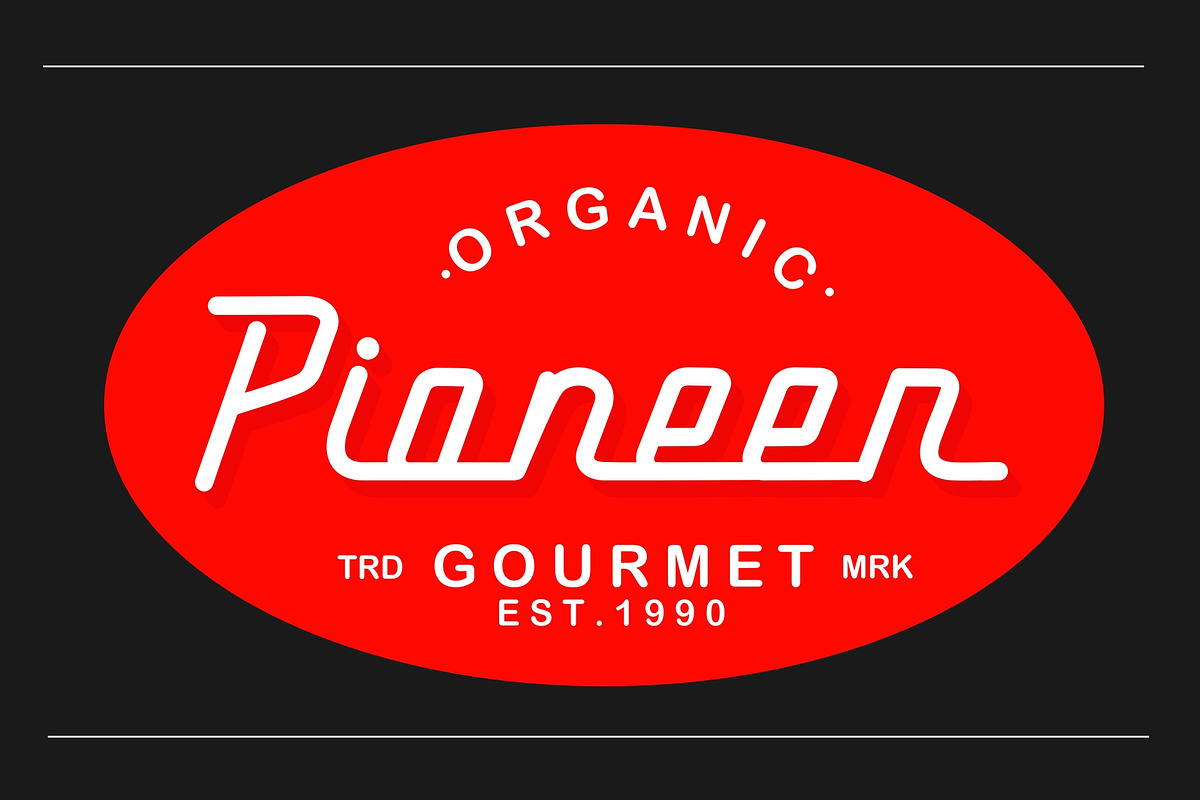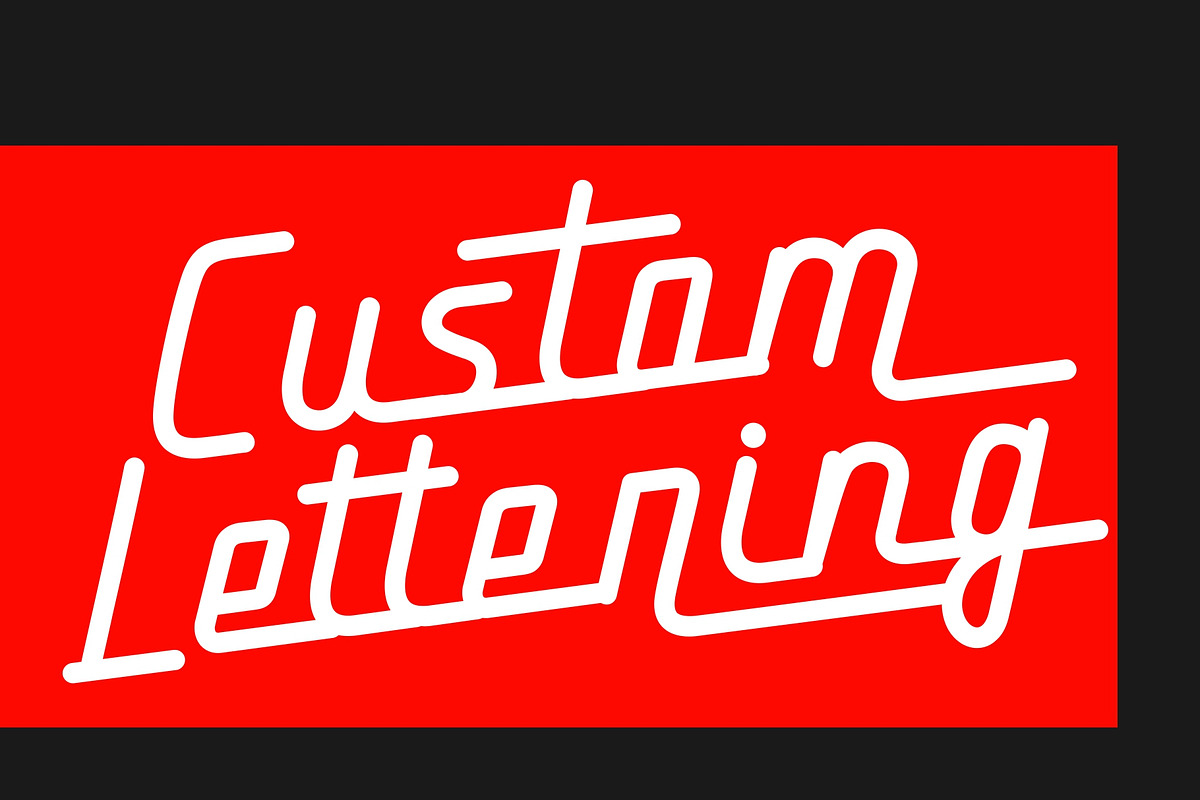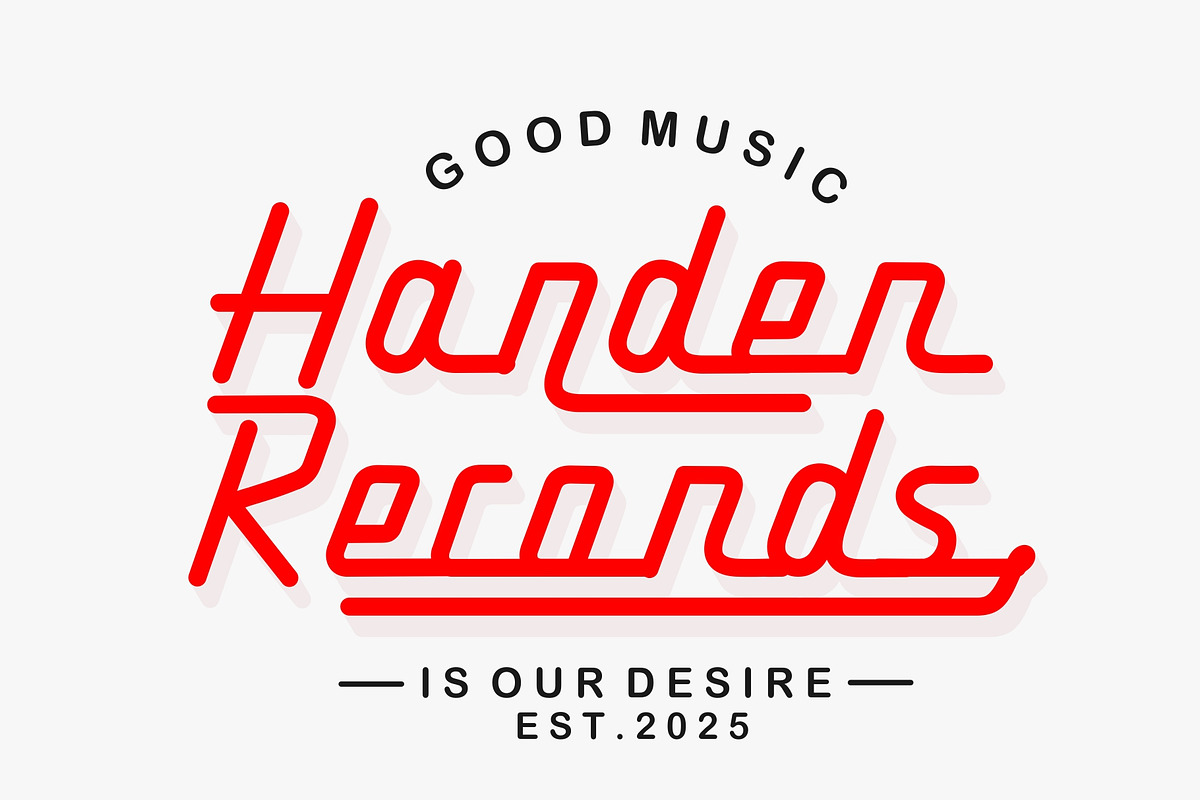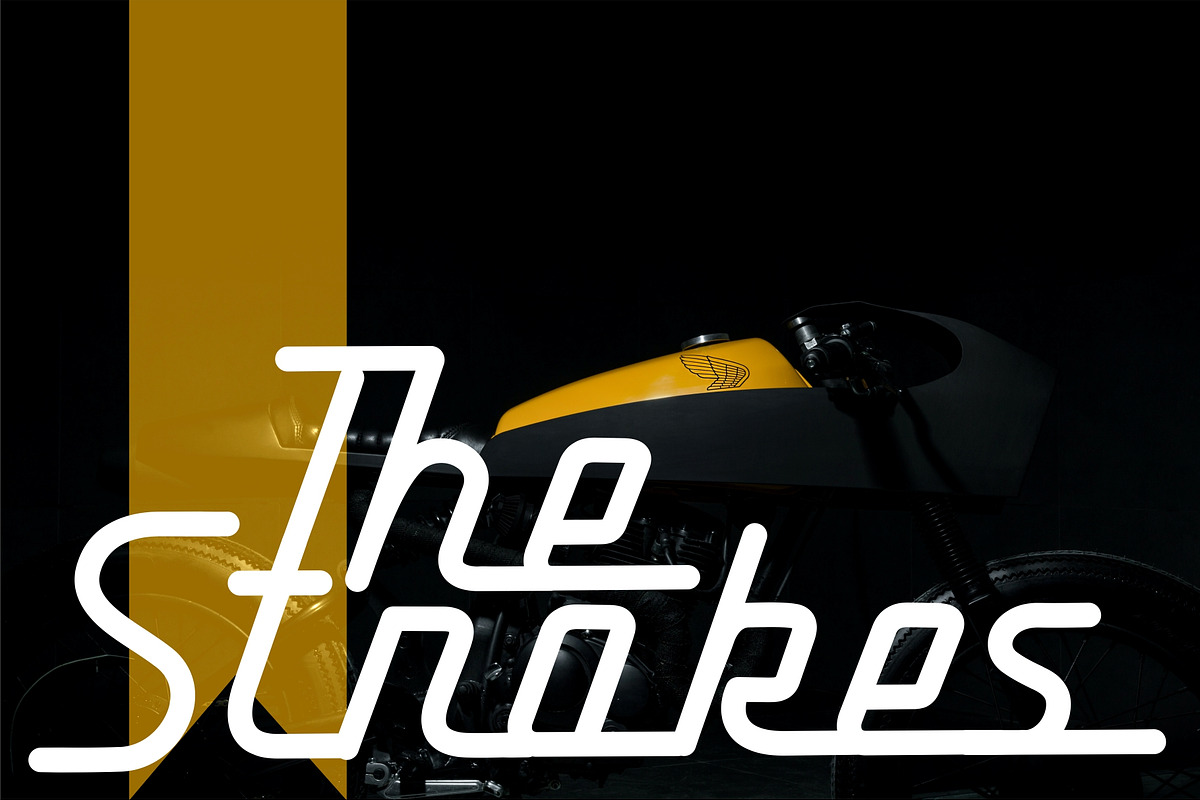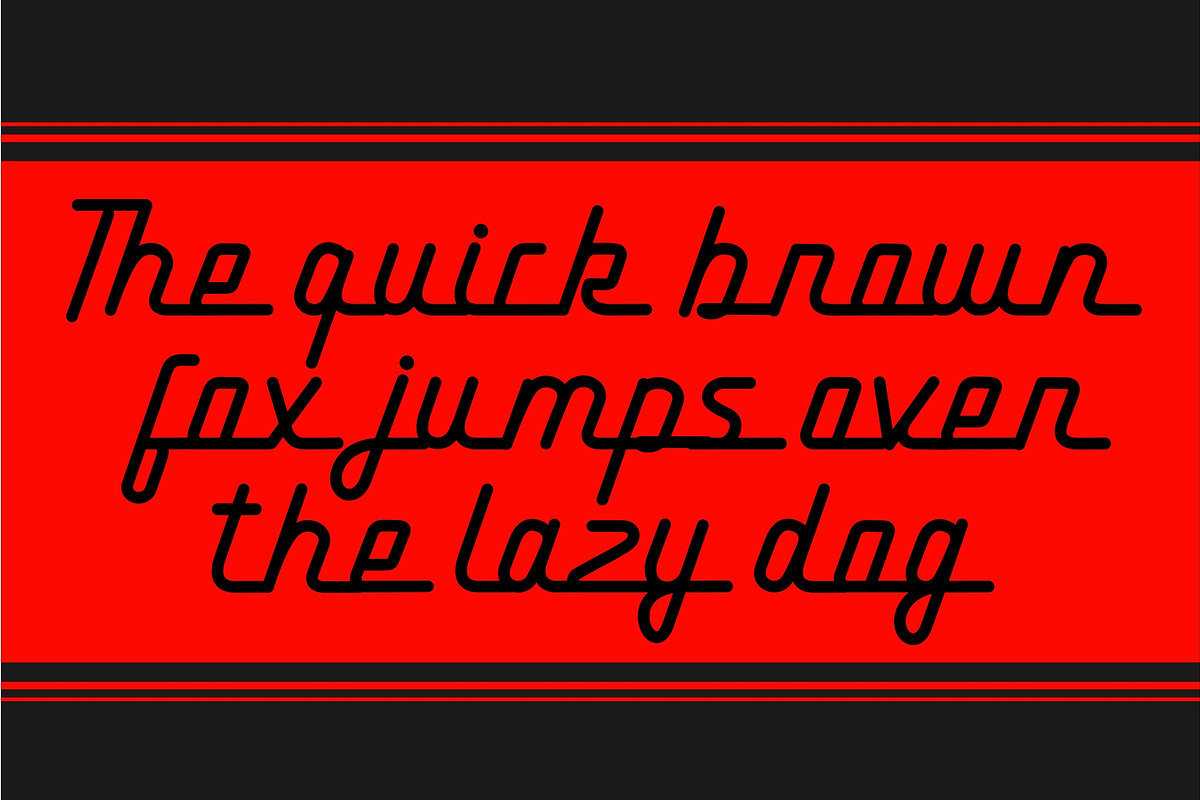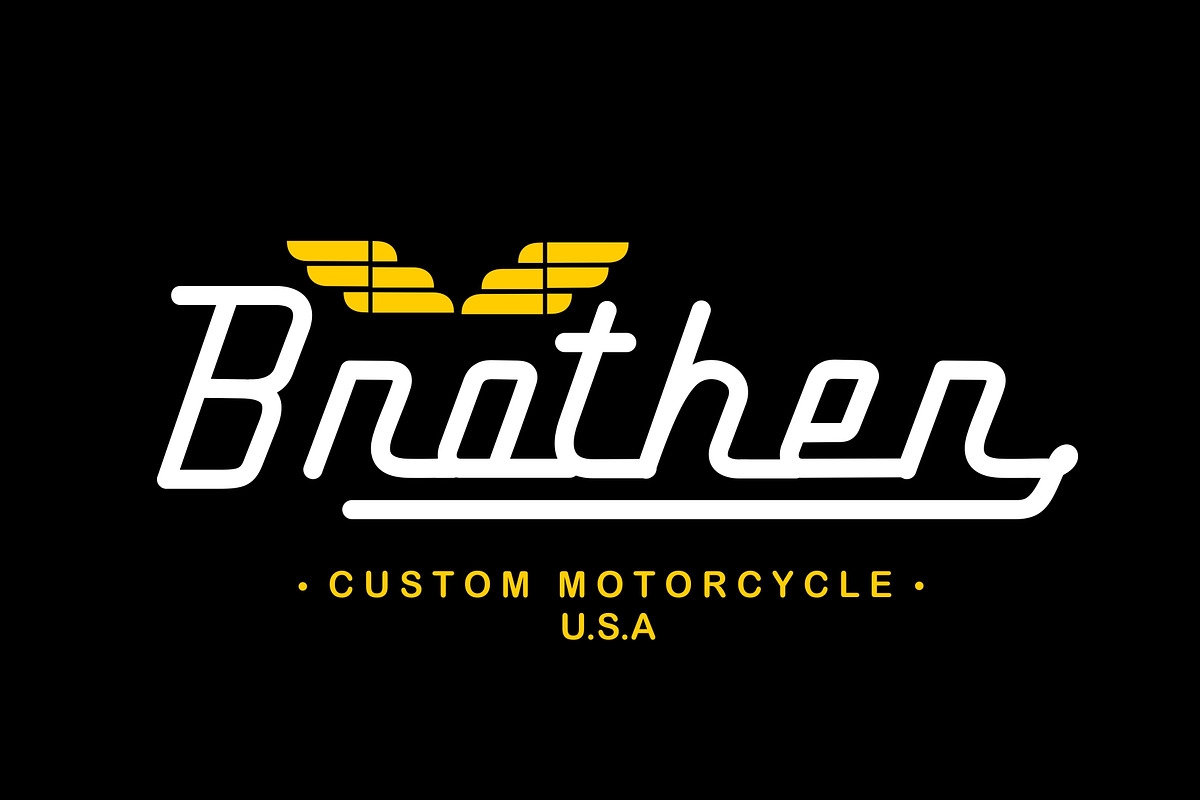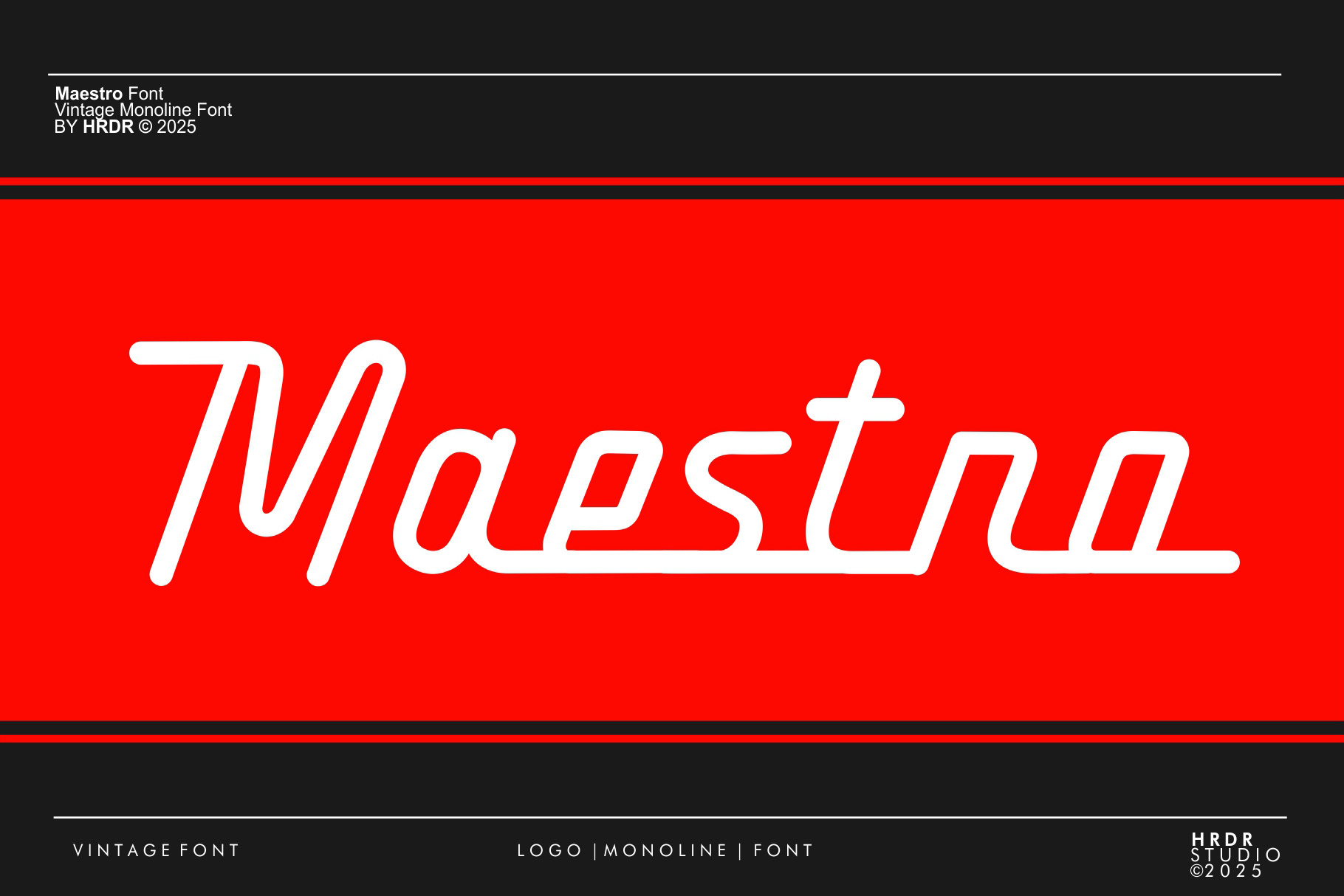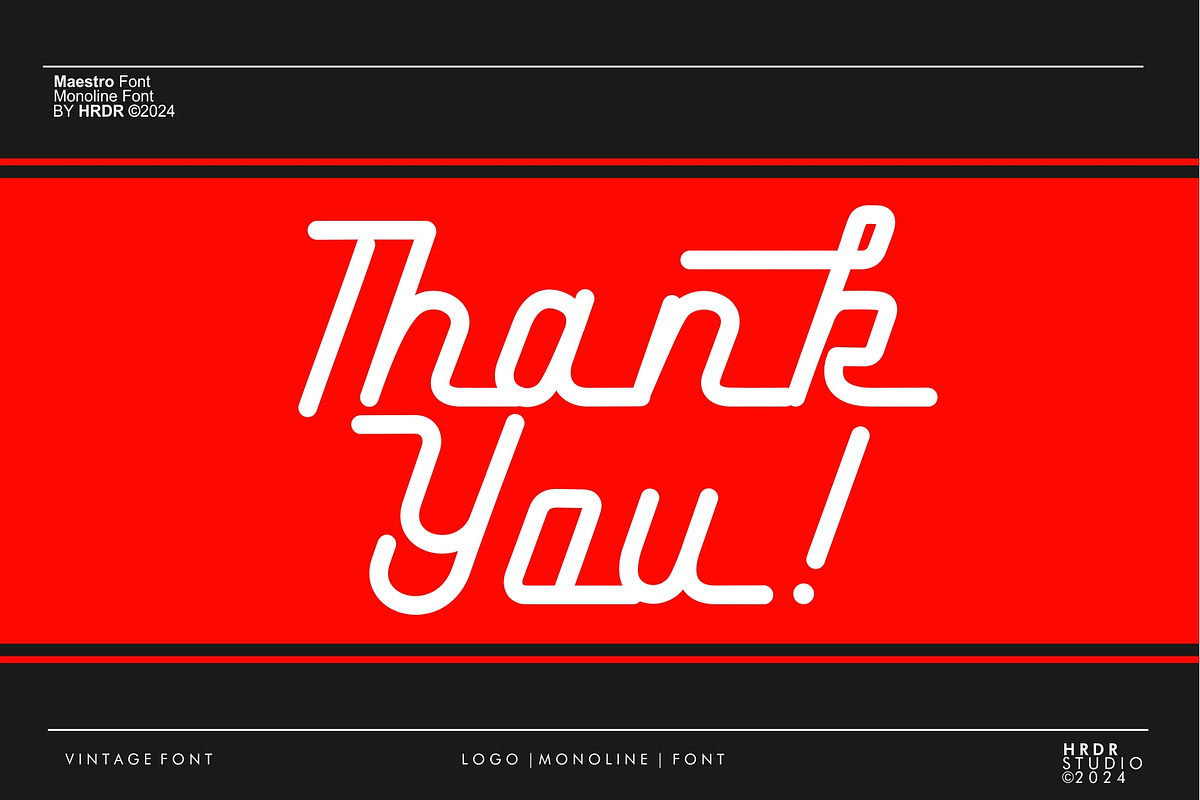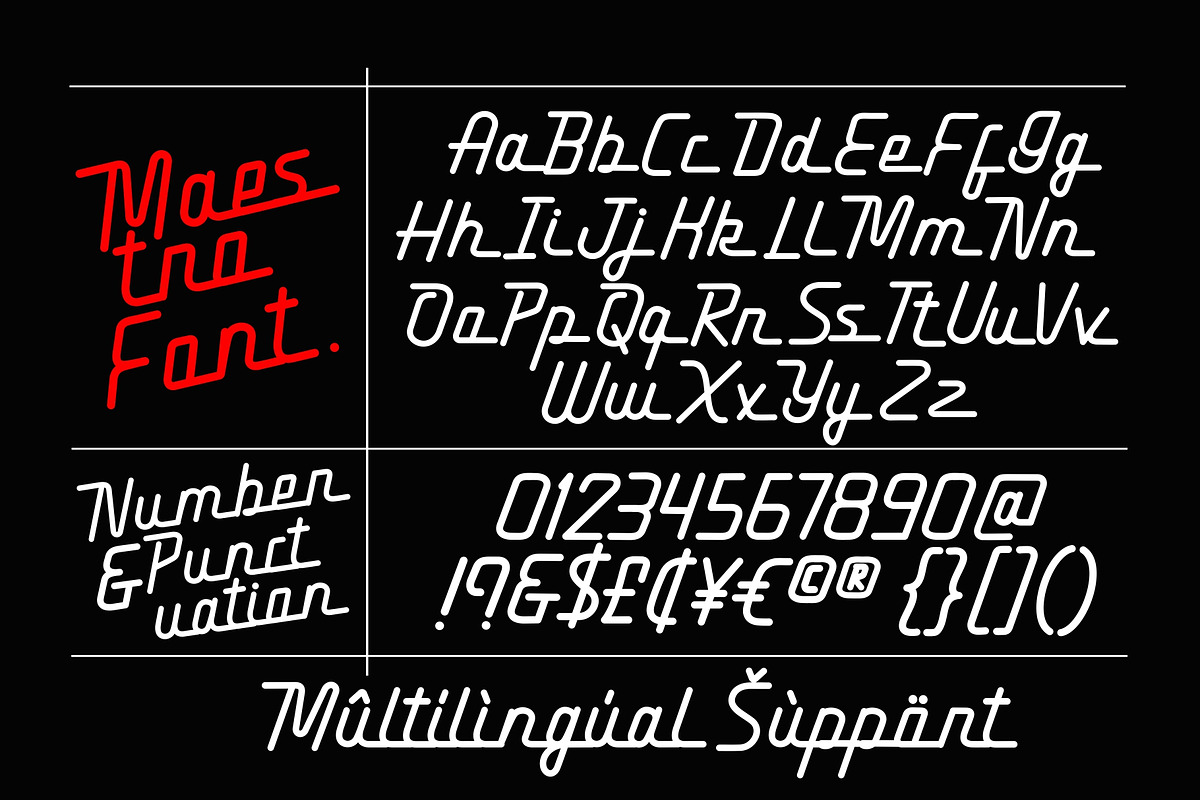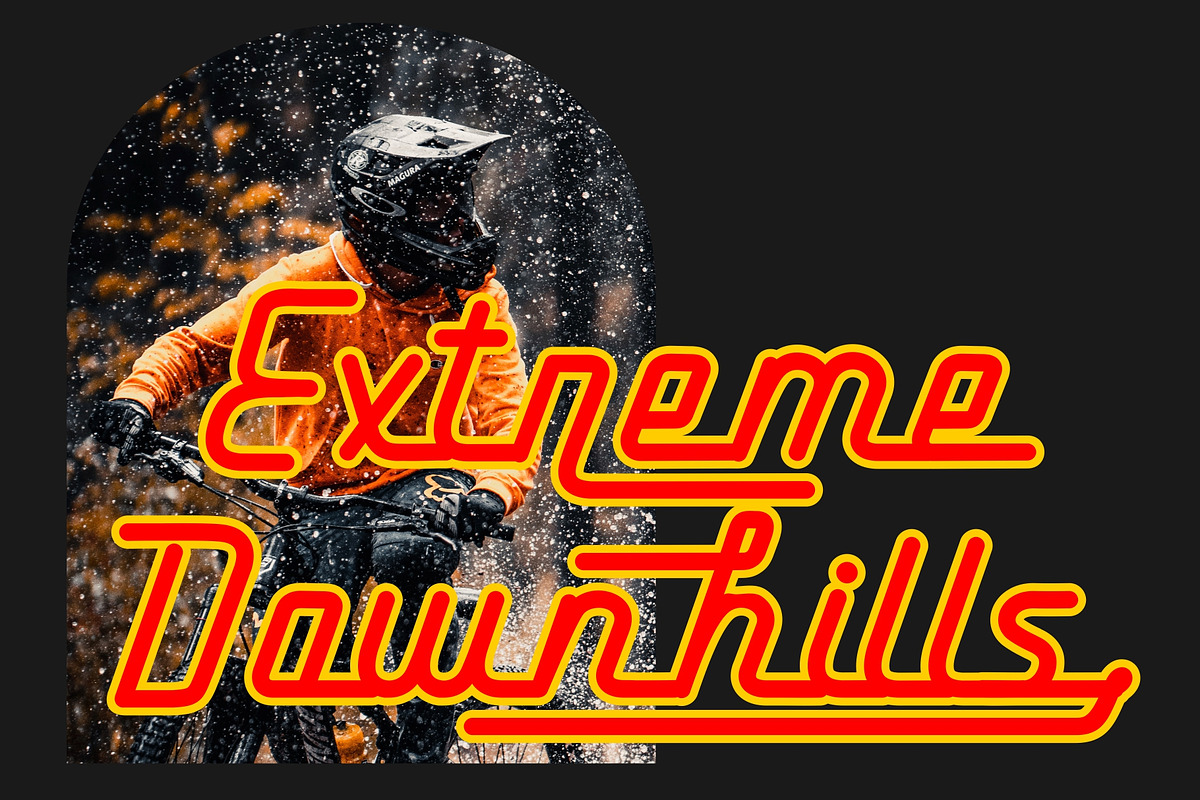
Maestro - Vintage Monoline Font
Maestro is a monoline script typeface The font have rounded edges, so this script typeface gives a feel of vintage, classic, old, handmade looked-like. the font is well crafted and was carefully added in each character. It is perfect for creating the traditional style logos, labels, clothing brand logo,Vintage design, package design, lettering for t-shirts ,Quotes and much others.
- numeric & Multilingual support
- Stylistic Alternates with Ss01and Swash